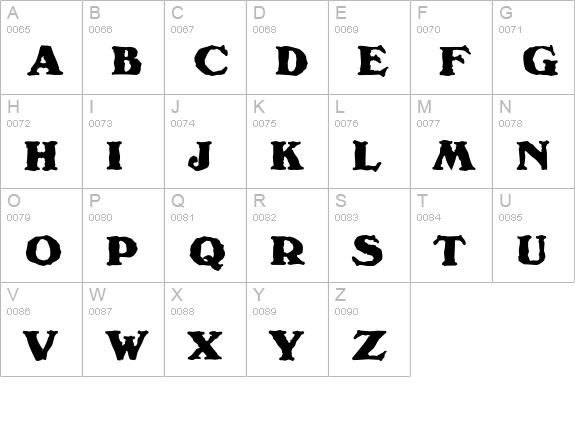
VeronaRandom-Heavy-Regular Font Details
VeronaRandom-Heavy-Regular is a heavy, high-impact variant in the VeronaRandom typeface family \xE2\x80\x94 well suited to high-impact headlines, posters, and display advertising.
VeronaRandom-Heavy-Regular font is a bold and striking typeface that commands attention with its unique and random letter design. Each character in this font exudes a sense of unpredictability and creativity, making it perfect for eye-catching headlines, posters, and branding projects. What sets VeronaRandom-Heavy-Regular font apart is its ability to add a touch of excitement and individuality to any design. The heavy weight of the font gives it a strong presence, while the random elements create a dynamic and energetic feel. Best of all, VeronaRandom-Heavy-Regular font is available for free download at FontsMarket.com. This means you can easily incorporate this one-of-a-kind typeface into your projects without any cost. Don't miss out on the opportunity to enhance your designs with the bold and captivating VeronaRandom-Heavy-Regular font today!